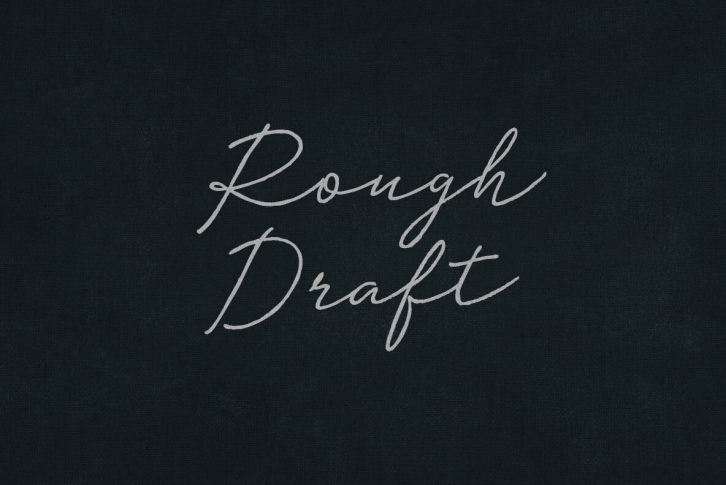
Here’s the pen, pressed to pre-palimpsest—there’s a first time for everything else—and the Rough Draft howls through plot-holes like the original origin. Margins runneth over ink-stained wrists and a scrawl-covered cover, sketching realities between execution and intention.